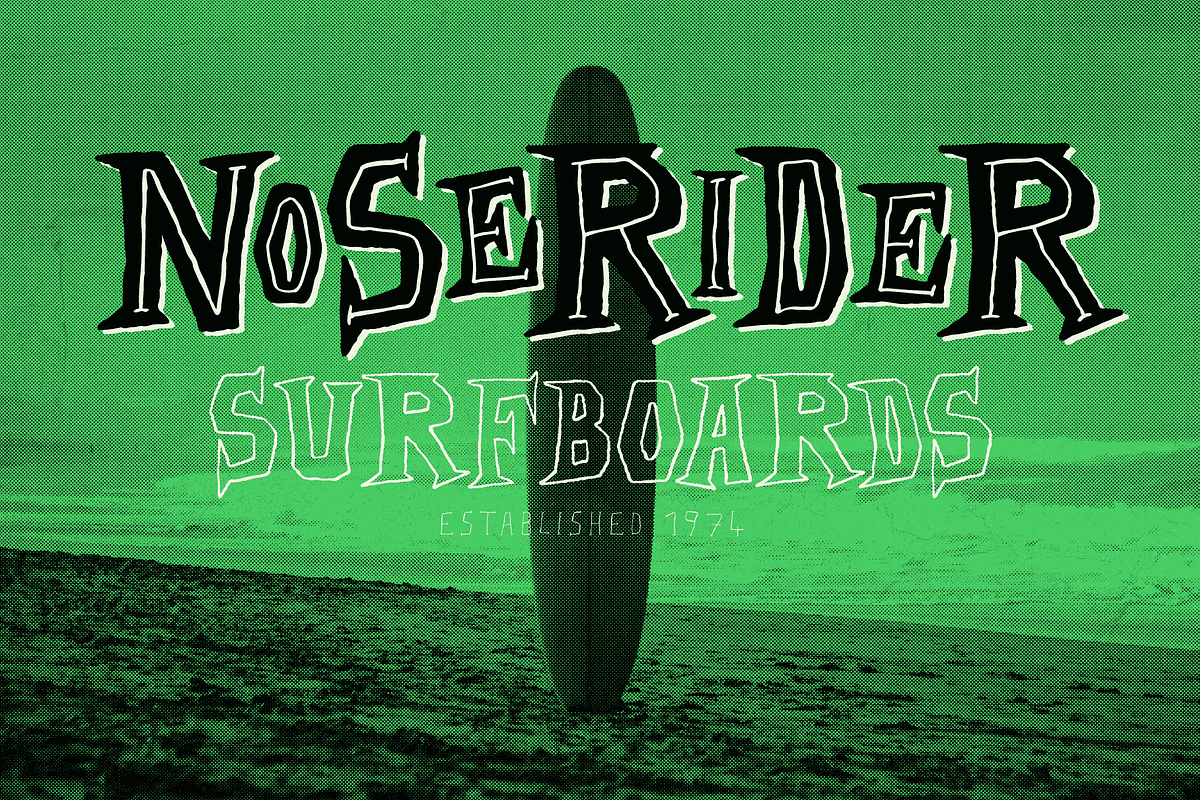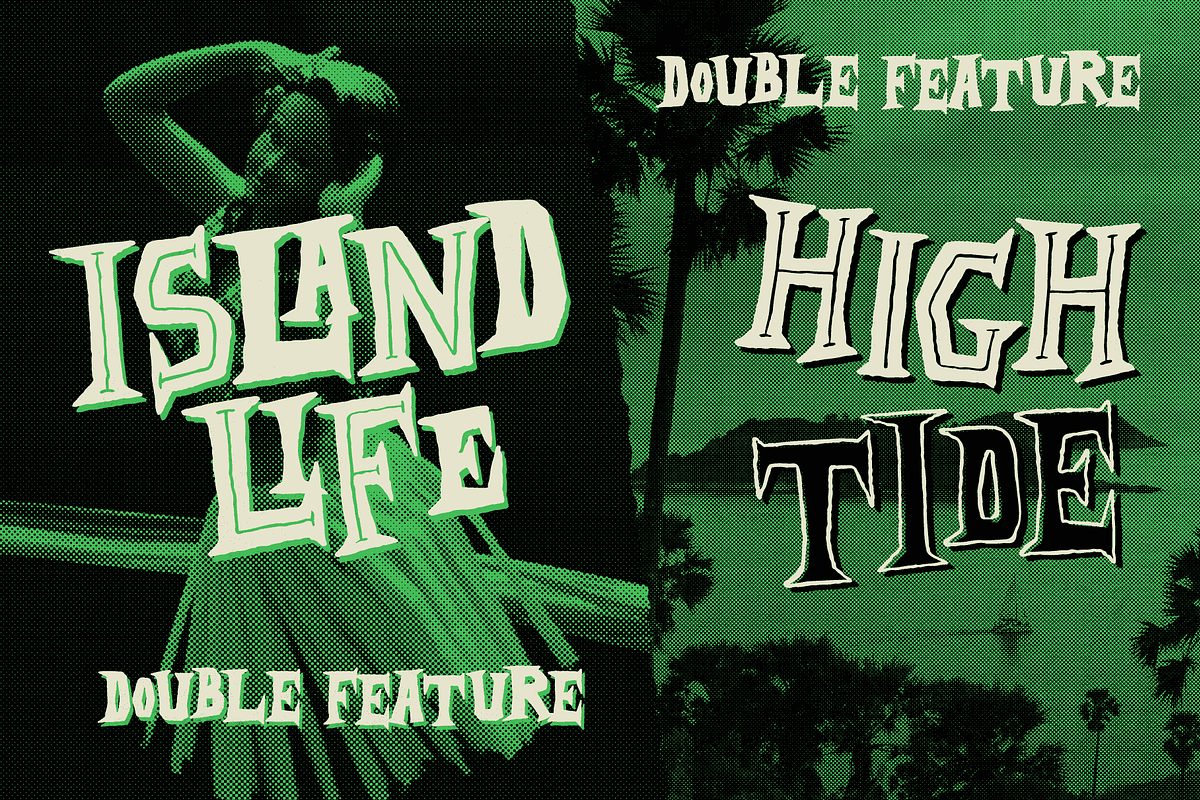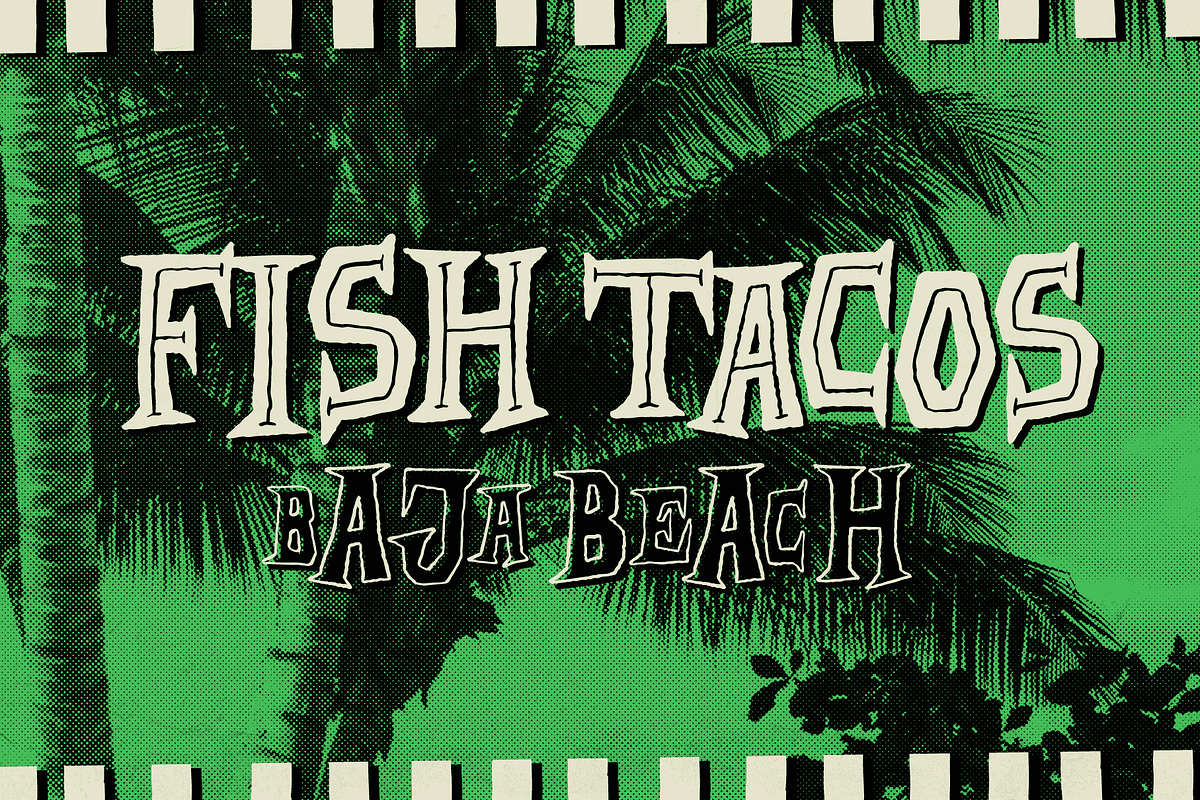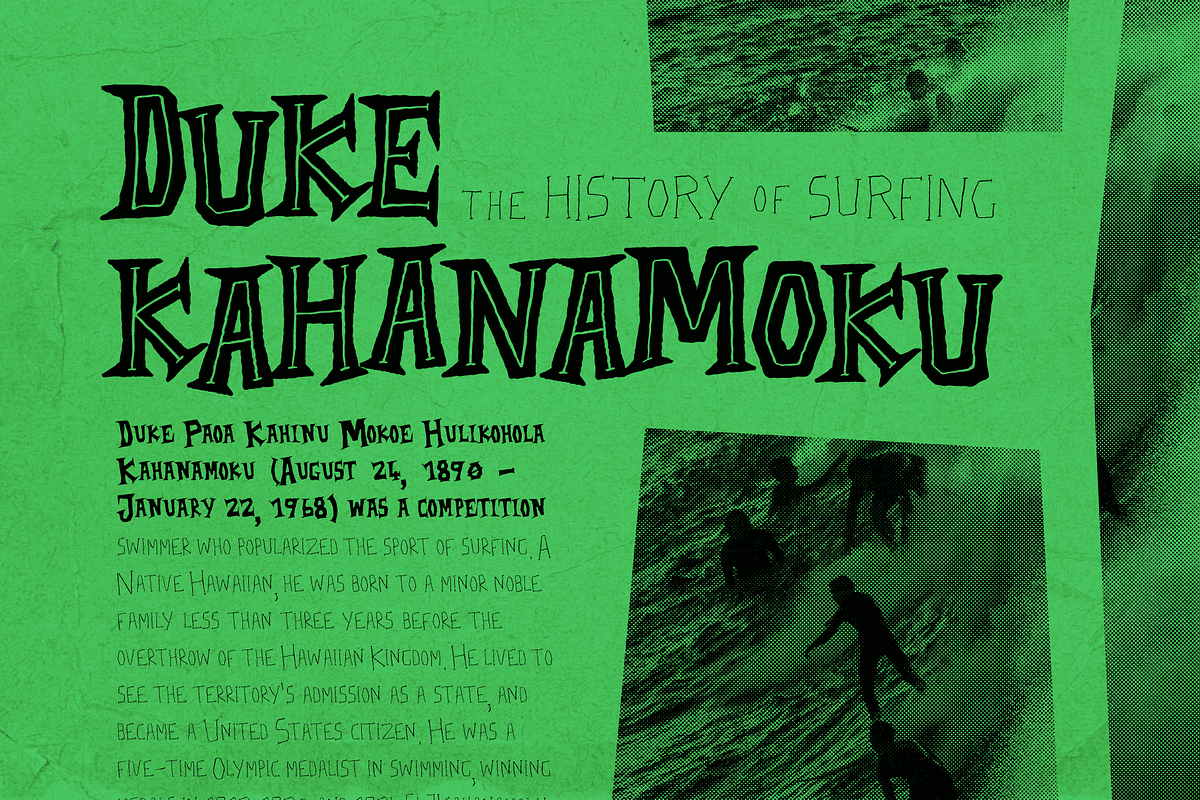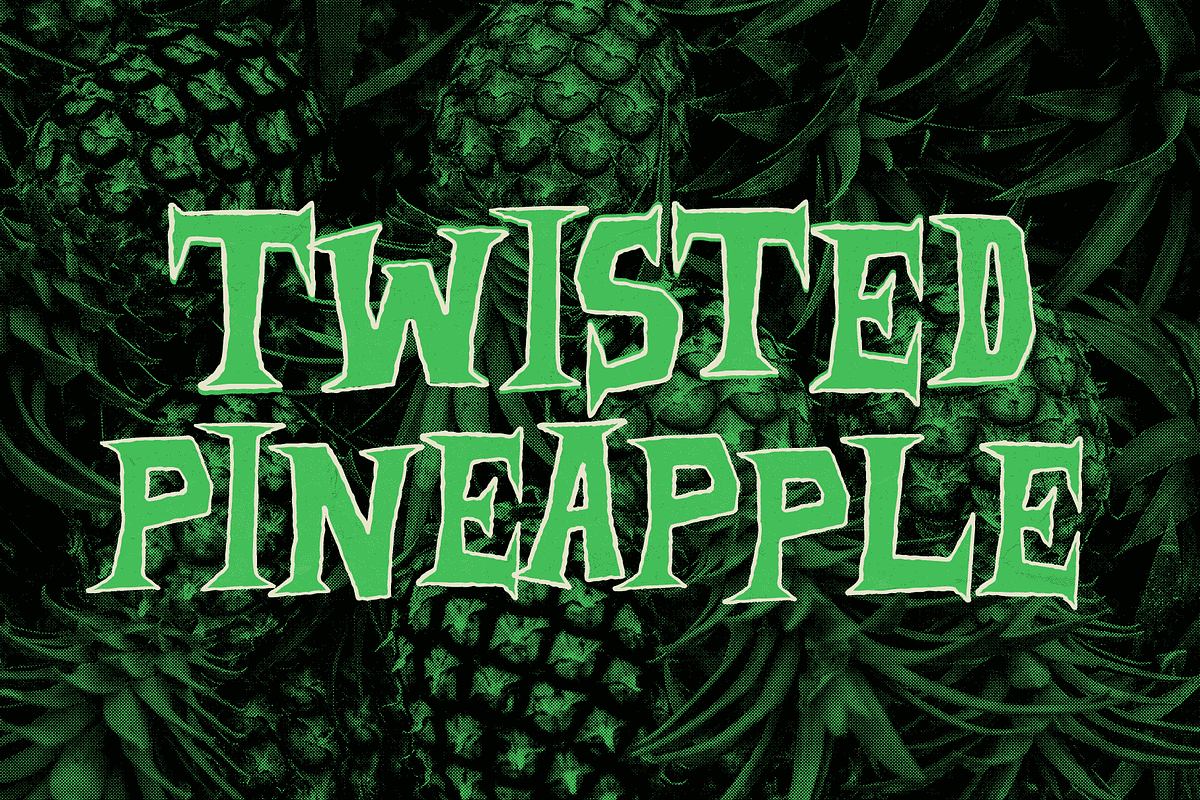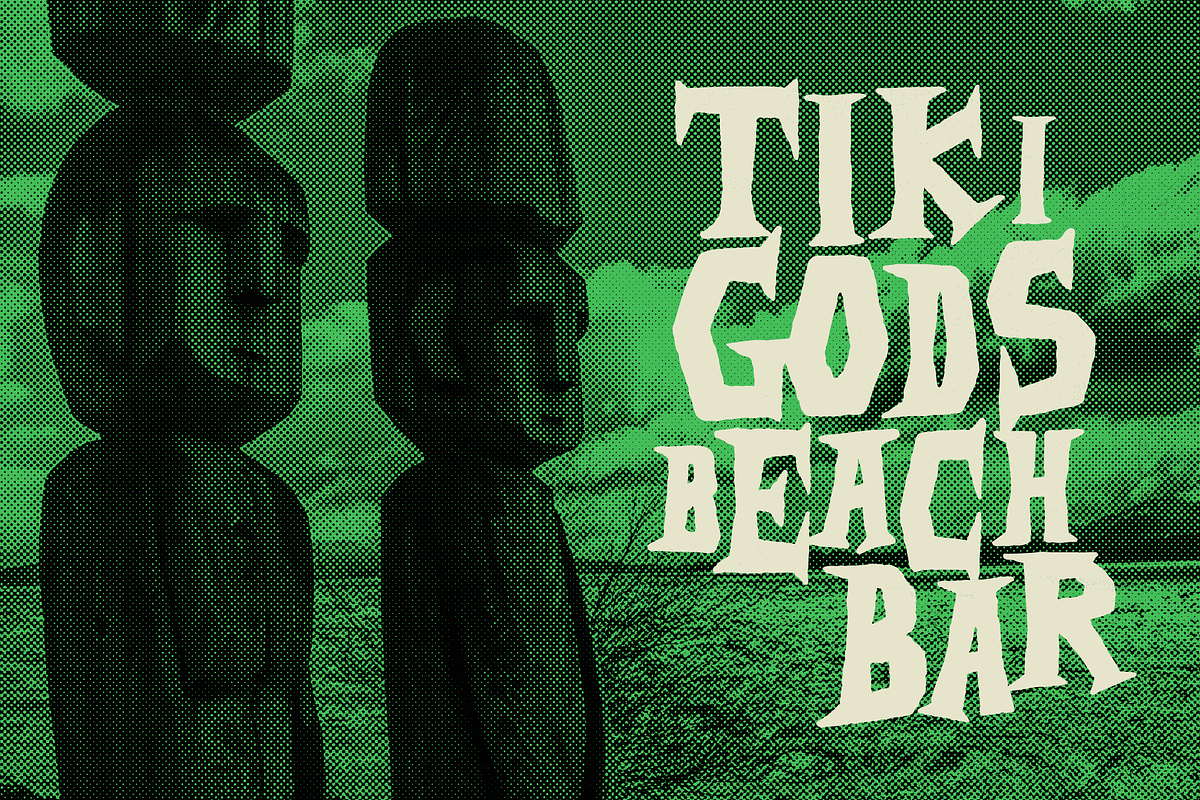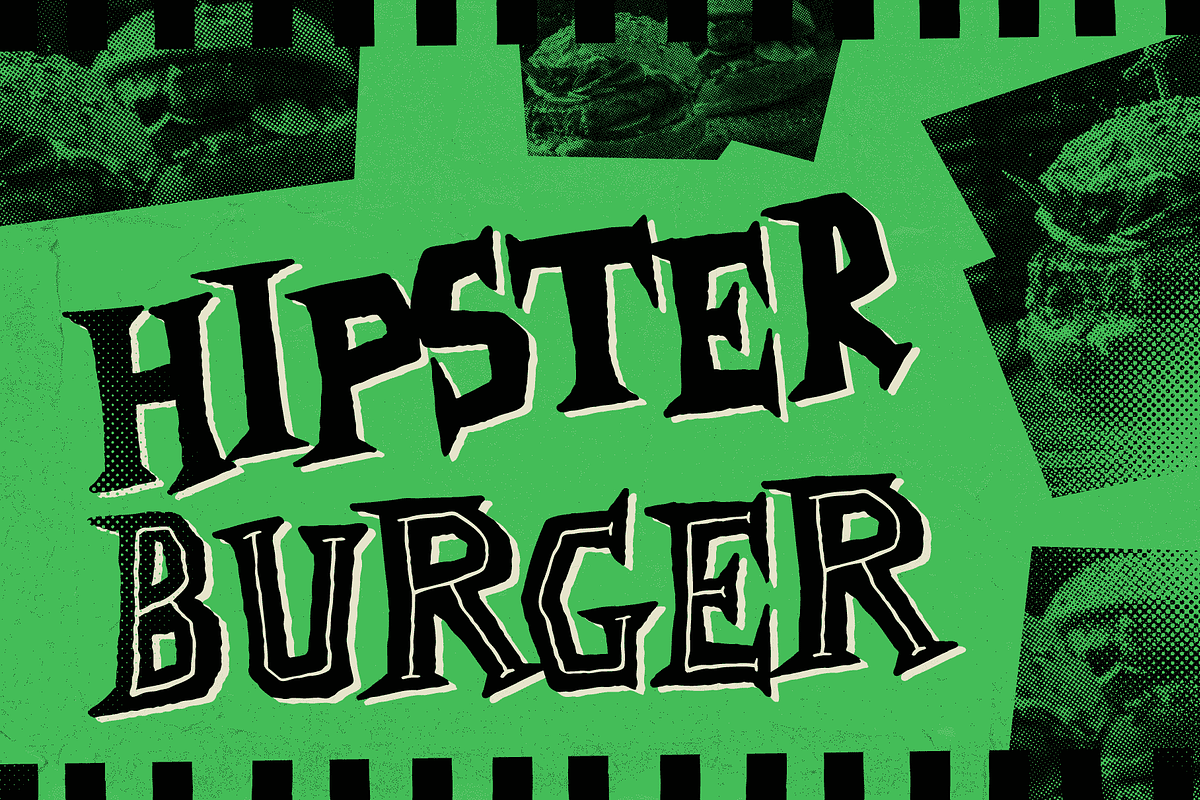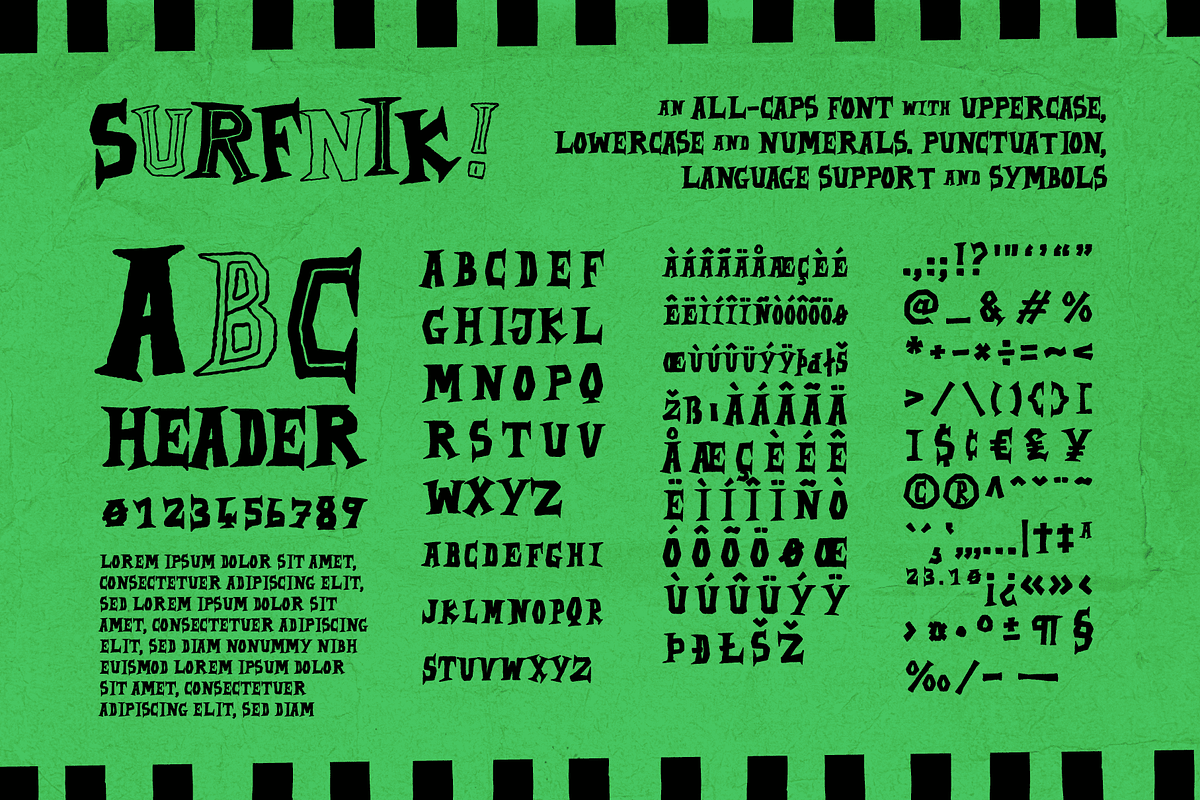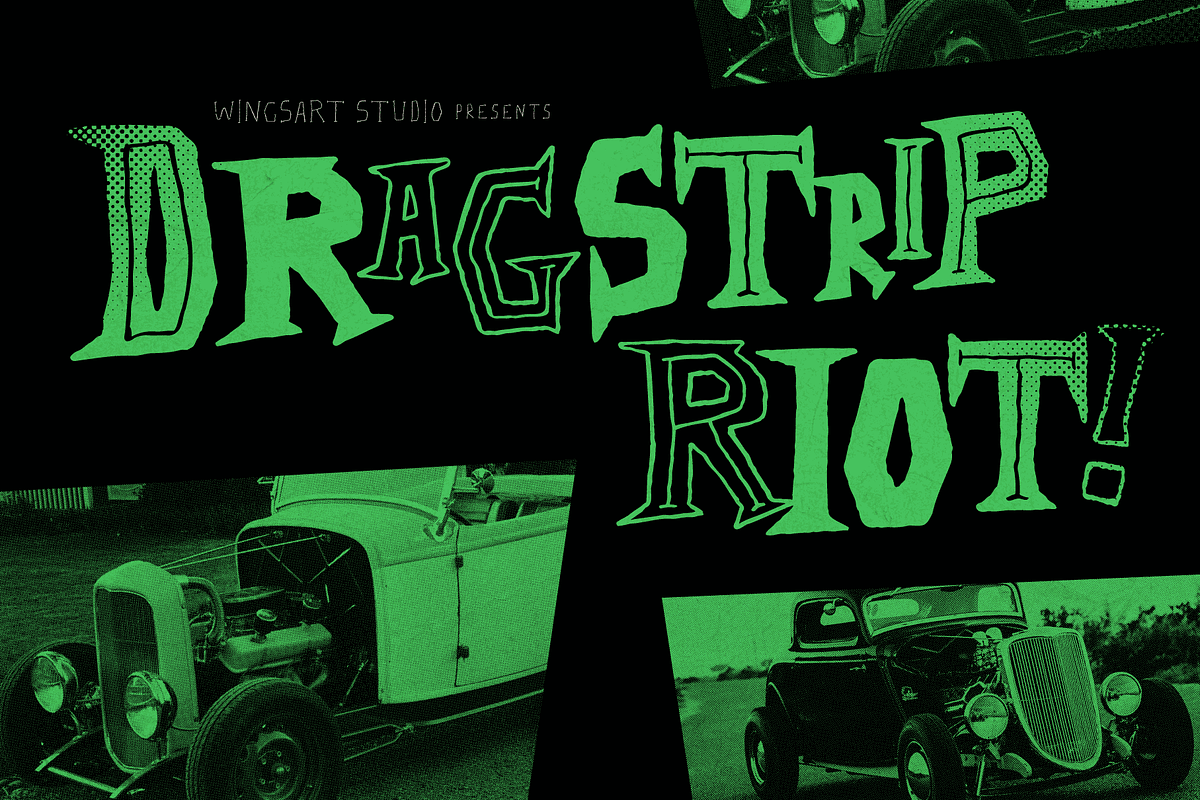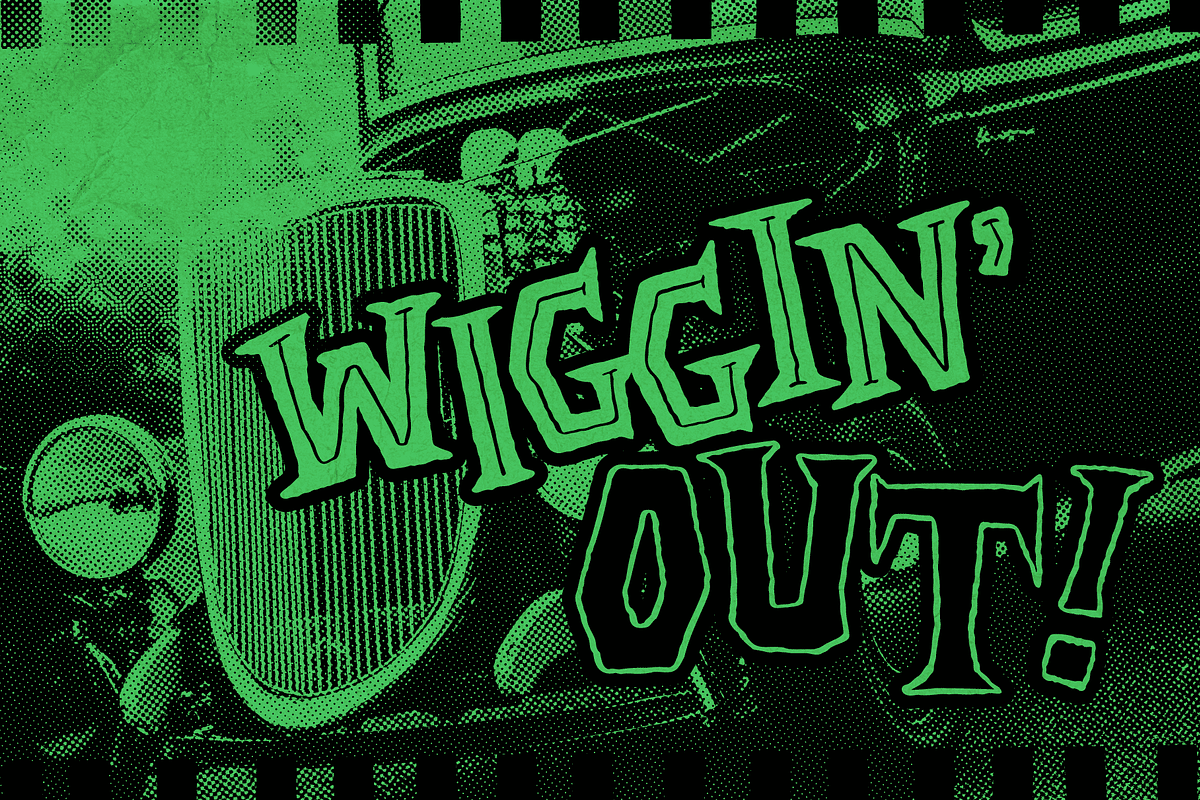
Surfnik - A Hand-Made Surf Font
Surfnik - A Hand-Made Font Influenced by Vintage Surf and Beatnik Culture
Surfnik is a hand-drawn font inspired by beatnik and surfing culture of the 1950s and 60s. A fun, loose design that’s typical of pulpy fanzines, movie posters and advertising of the era. From promoting the local surf shop, burger joint or drive-in, it’s a font that evokes a bygone era with a playful, nostalgic feel.
Surfnik features an all-caps design that includes unique uppercase and lowercase characters, punctuation, language support and numerals. It also comes with six styles that mix up weights and outlines that look great when creatively combined in titles and headlines.
It’s a great choice for when you need a fun and lively look when creating menus, posters, movie titles, album covers and more! Check out the visuals for lots of examples.